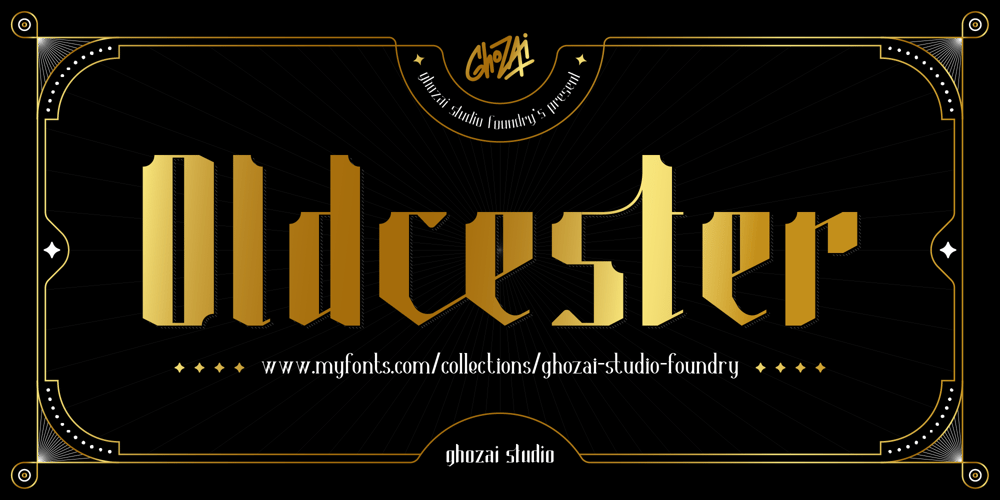
Oldcester
Oldcester font
Oldcester Font Family was designed by Manzur Ghozaali and published by Ghozai Studio. Oldcester contains 4 styles and family package options. Oldcester is inspired by Old English / Blackletter / Gothic style font but with simpler and straightforward shapes. It comes in 4 styles, with many ligatures to give more flexibility for your design needs. Oldcester is suitable for any design project such as luxury design (Beer logo and packaging, restaurant menu, restaurant poster or web, wedding invitation), fashion, band poster, headline, and many others.